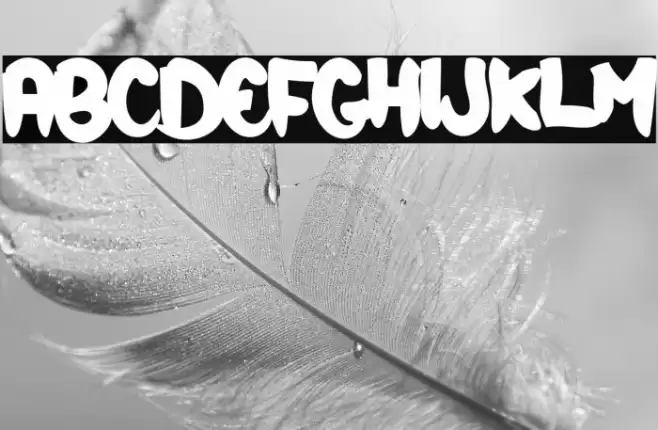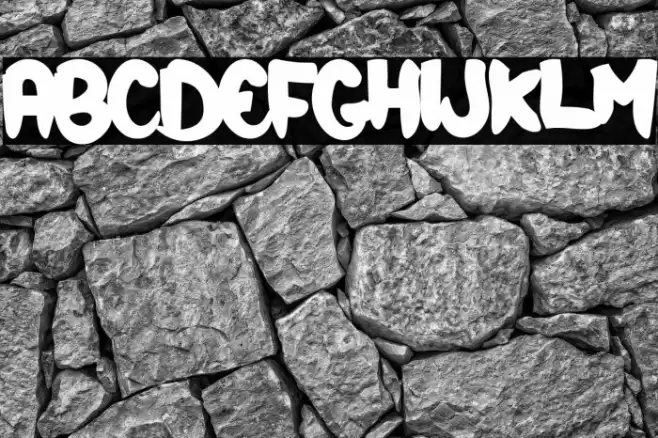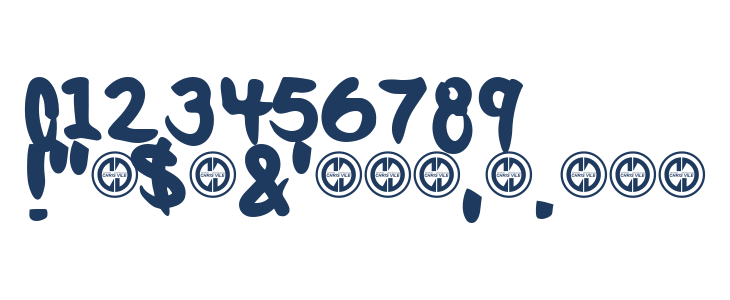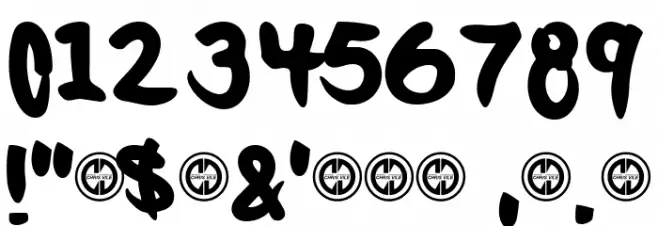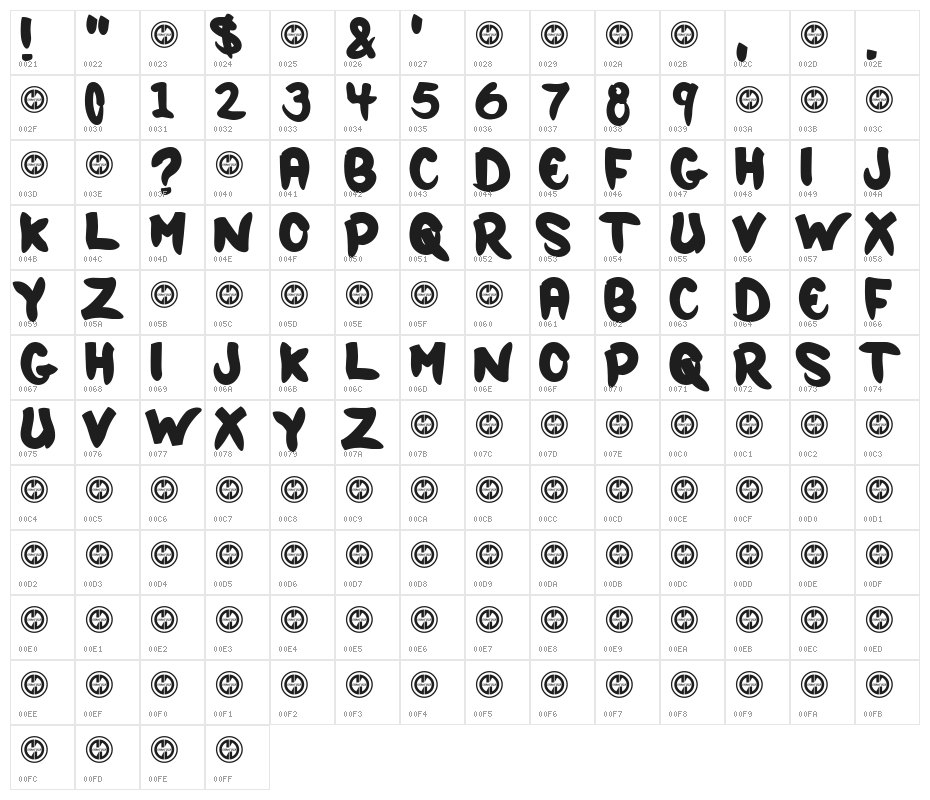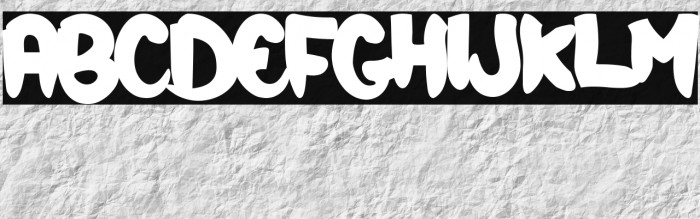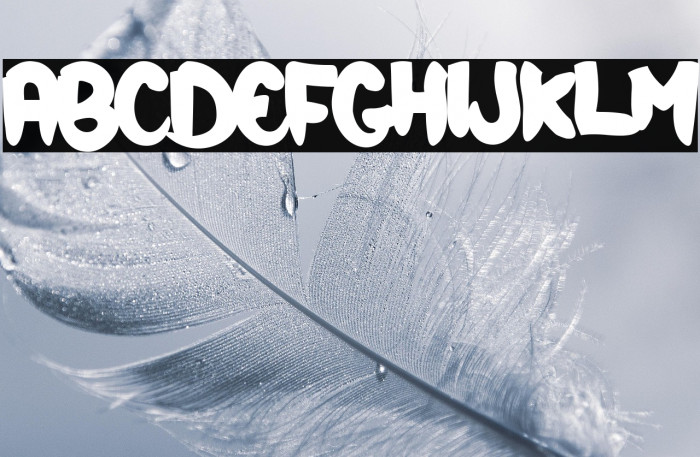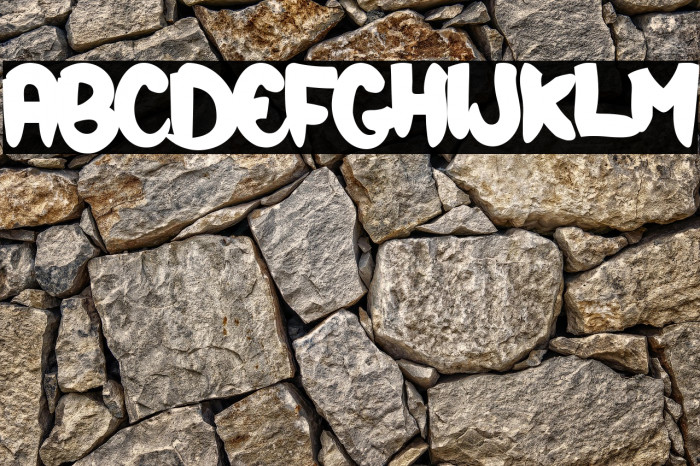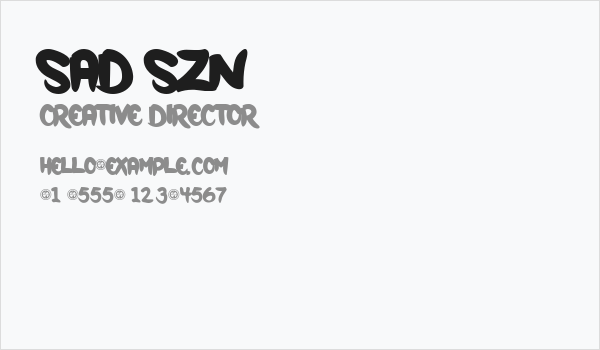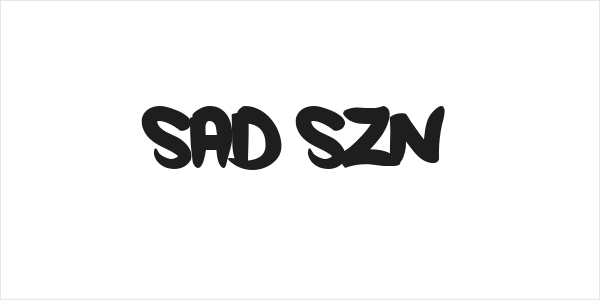
Sad Szn Font
Sad Szn Description
This font features bold, rounded characters with a playful and energetic style. The letters are thick and have a hand-drawn, graffiti-like appearance, giving them a dynamic and informal look. The strokes are consistent in weight, providing a uniform appearance across all characters. The font includes uppercase and lowercase letters, numbers, and a selection of special characters. Its boldness and unique style make it stand out, suitable for creative and eye-catching designs.
A bold, graffiti-style font with rounded, hand-drawn characters from Uncategorized fonts.
- Font: Sad Szn
- Proposed Projects: Ideal for street art-inspired designs, posters, album covers, and branding that requires a bold and youthful touch.